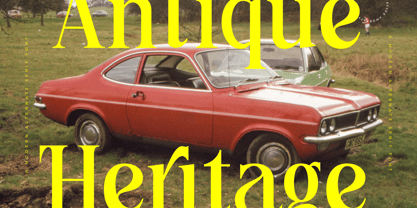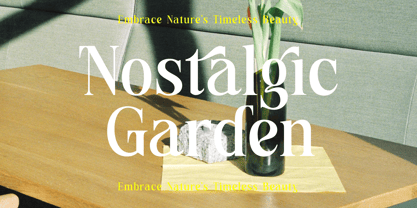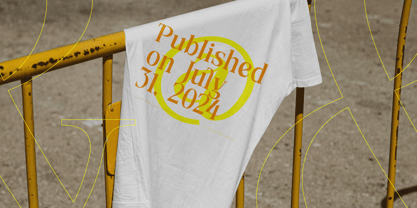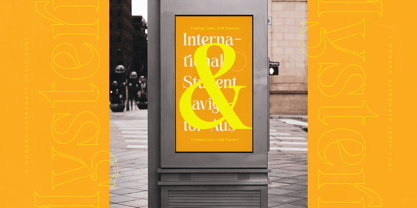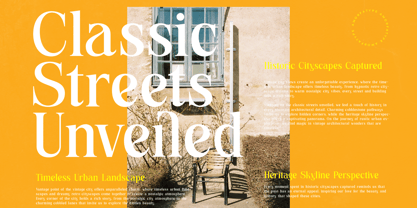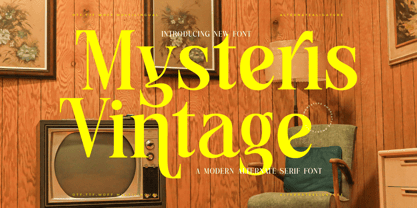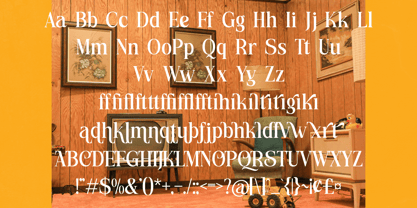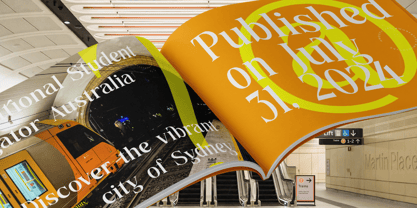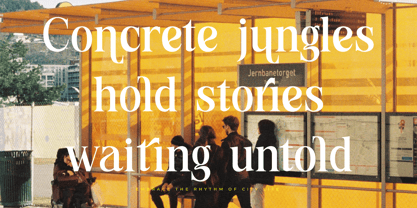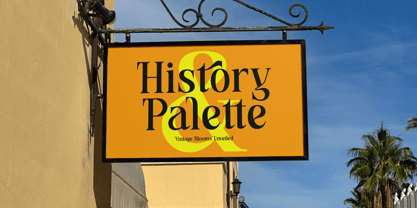
Mysteris Vintage
by Amorfa Type
The Mysteris Vintage Font Family was designed by Shiddiq Roihan and published by Amorfa Type. Mysteris Vintage contains 2 styles and family package options. More about this family
Mysteris Vintage A Modern Alternate Serif Font by Amorfatype
Mysteris Vintage is a refined serif font that seamlessly blends timeless vintage elegance with a contemporary edge. Its bold, distinctive serifs and intricate detailing evoke a sense of classic sophistication, while its modern alternates and carefully crafted design ensure versatility and readability. With a nod to the past and a forward-thinking spirit, Mysteris Vintage is perfect for high-end branding, editorial design, and any project that requires a touch of refinement and charm.
Each character is thoughtfully designed to maintain a balance between traditional serif style and modern versatility, making it ideal for use in luxurious logos, upscale packaging, or elegant print layouts. Mysteris Vintage brings a sense of nostalgia while maintaining a fresh, current appeal, elevating your creative projects to a new level of sophistication.